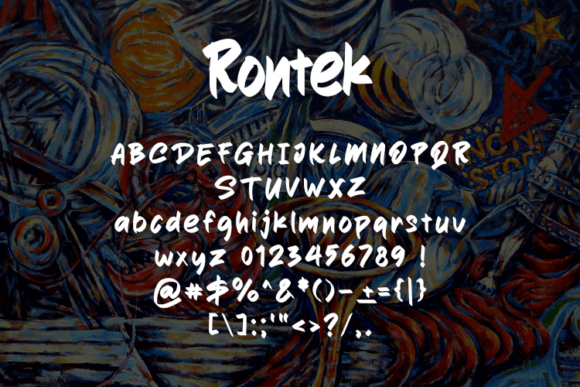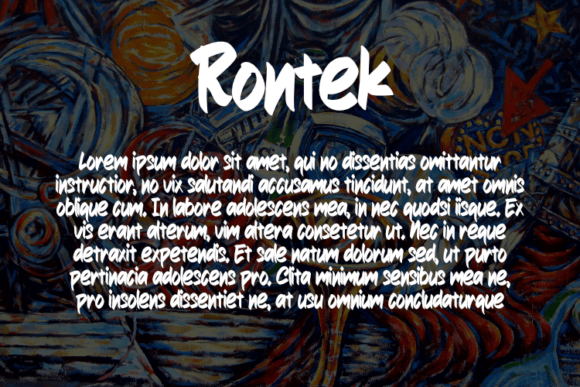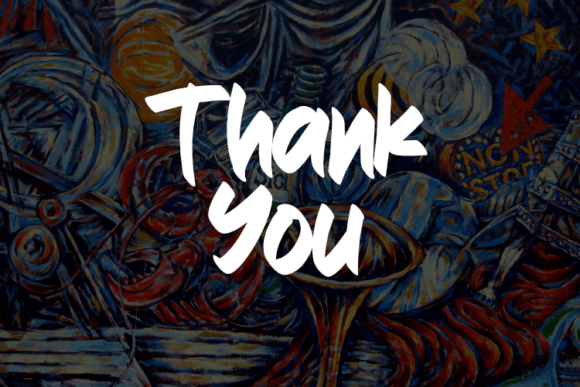
Introduction to Rontek Font Font
Fonts play a crucial role in design, and the Rontek Font font is a typeface that brings both character and versatility to any project. Whether you’re working on a branding project, a website, or a print design, the Rontek Font font offers a unique style that can elevate your work.
| 👤 Author | Eric Kusuma |
Rontek is a dynamic and contemporary font that adds a touch of energy to your designs.
With its bold lines and sharp angles, this font is perfect for creating modern and eye-catching visuals .
Key Features of Rontek Font Font
Why Choose Rontek Font Font?
The Rontek Font font is more than just a typeface – it’s a design tool that helps you communicate your message with style and clarity. Its unique character set and versatile design make it suitable for a wide range of applications, from elegant invitations to bold headlines.
With its carefully crafted letterforms and balanced proportions, the Rontek Font font ensures readability and visual appeal across all mediums.
What makes Rontek Font font special?
The Rontek Font font stands out with its unique design, exceptional readability, and versatility across various design applications.